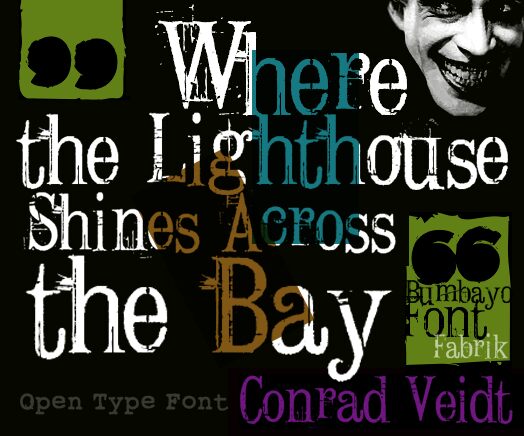
ConradVeidt by Bumbayo is a free eroded serif display font with the scarred look of badly worn type. Its tall, uneven letters combine fine lines with dark, rough strokes and blunt old-style serifs. The damage feels embedded in the printing rather than added afterward.
Themes of decay, mystery, and period drama make it a convincing fit for horror posters, book covers, and music packaging. Horror posters are its strongest setting, since the chipped edges and irregular ink can turn a title into a piece of weathered evidence rather than clean modern lettering.